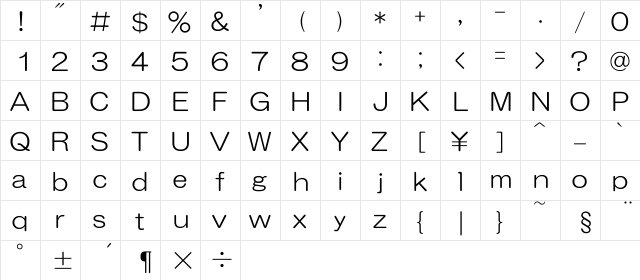
HGMaruGothicMPRO Regular Font Preview
HGMaruGothicMPRO Regular
Design Context for HGMaruGothicMPRO Typeface
HGMaruGothicMPRO takes a clean, functional approach — its unadorned letterforms prioritise legibility and work reliably across screen and print environments.
Font Pairing: Works well alongside a characterful serif or display font that can carry the expressive load while HGMaruGothicMPRO handles the functional copy.
Pro Tip: Pair HGMaruGothicMPRO with a display or serif font for headlines — its neutral character makes it an excellent supporting player in complex typographic systems.